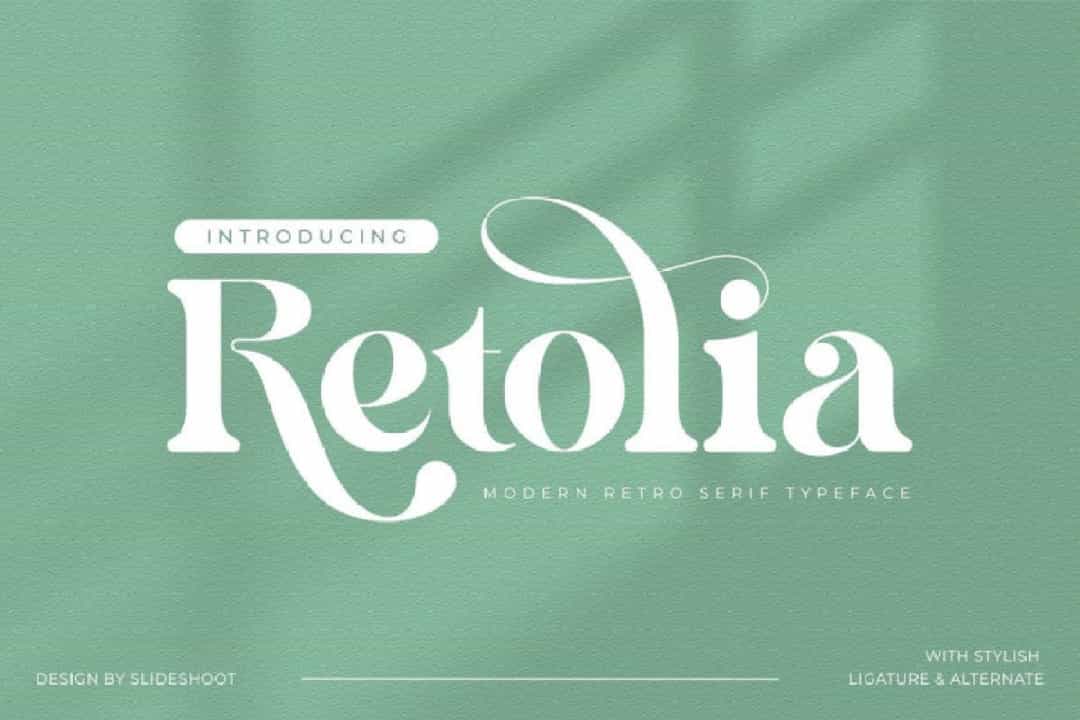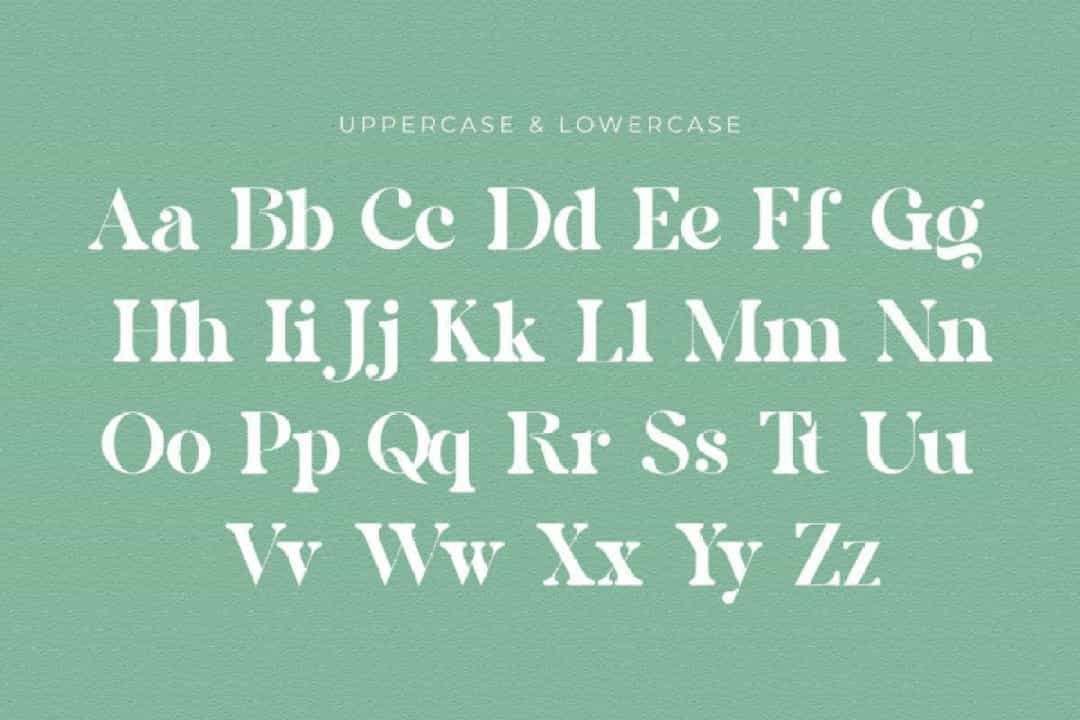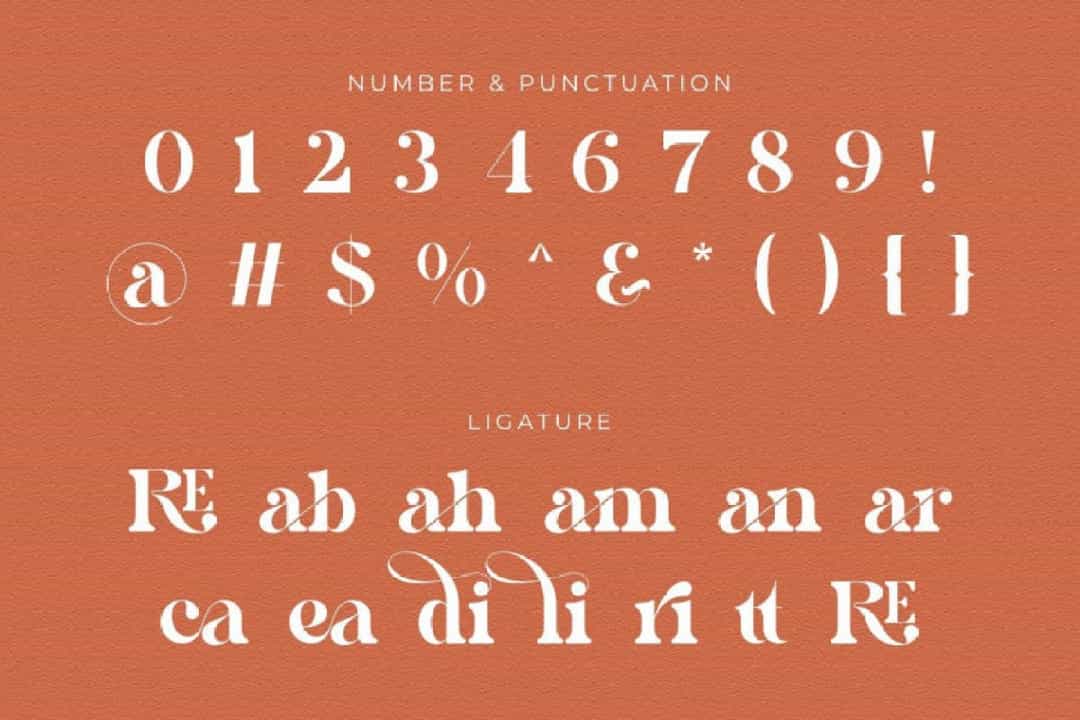
Retolia Retro Serif is a perfectly balanced, smooth, elegant and fashionable serif font with an iconic retro style that offers exquisite personality. Perfectly suitable for invitation cards, corporate logos and film titles as well as business cards, book titles and brand names among other designs, this font can bring any design alive!